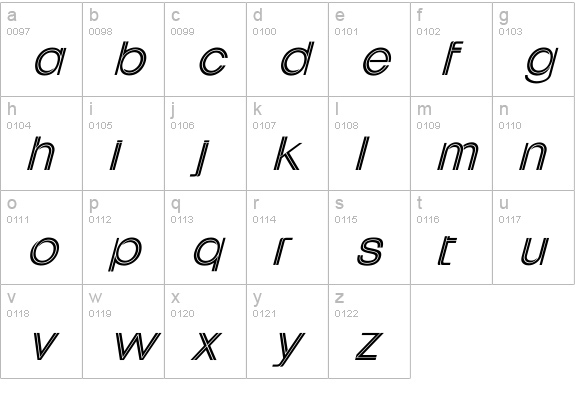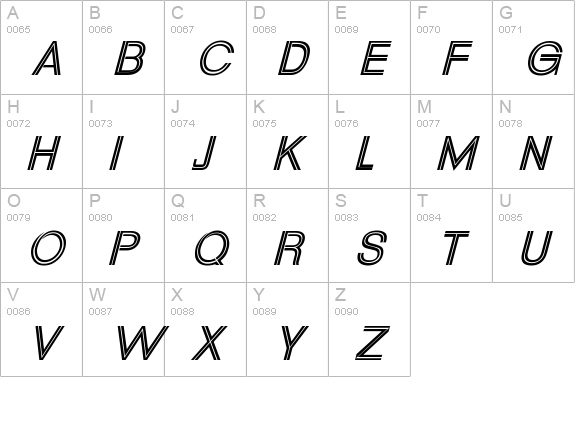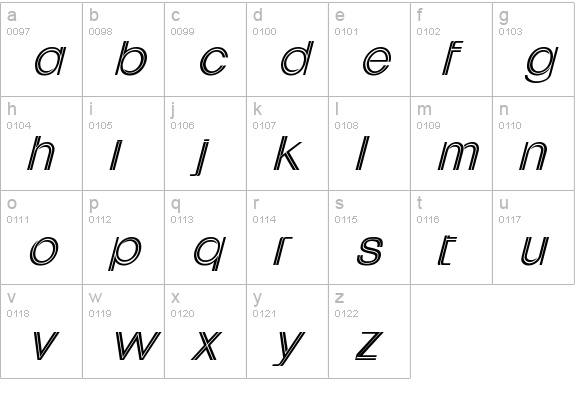
Uptight Italic is a distinctive, italic variant in the Uptight typeface family \xE2\x80\x94 well suited to design and typography projects.
Uptight Italic font is the perfect blend of elegance and sophistication, designed for those who appreciate the beauty of fine typography. Its sleek and slender letterforms exude an air of refined grace, making it ideal for any project that calls for a touch of sophistication. The Uptight Italic font is characterized by its graceful curves and delicate strokes, which add a sense of fluidity and movement to each letter. Its italicized style adds a touch of playfulness, making it versatile enough for both formal and informal designs. This font is not only visually appealing, but it also offers an exceptional reading experience. The carefully crafted letterforms ensure clarity and legibility, even at smaller sizes, making it a reliable choice for any text-heavy project. And the best part? Uptight Italic font is freely available to download at FontsMarket.com. Whether you're a professional designer or a passionate hobbyist, you can access this stunning font without any cost. With just a few clicks, you can bring a touch of elegance to your designs, and elevate them to a whole new level. So, why wait? Download Uptight Italic font today and let its beauty and versatility inspire your next creative endeavor. With its timeless charm and effortless sophistication, it is sure to make a lasting impression on any project.